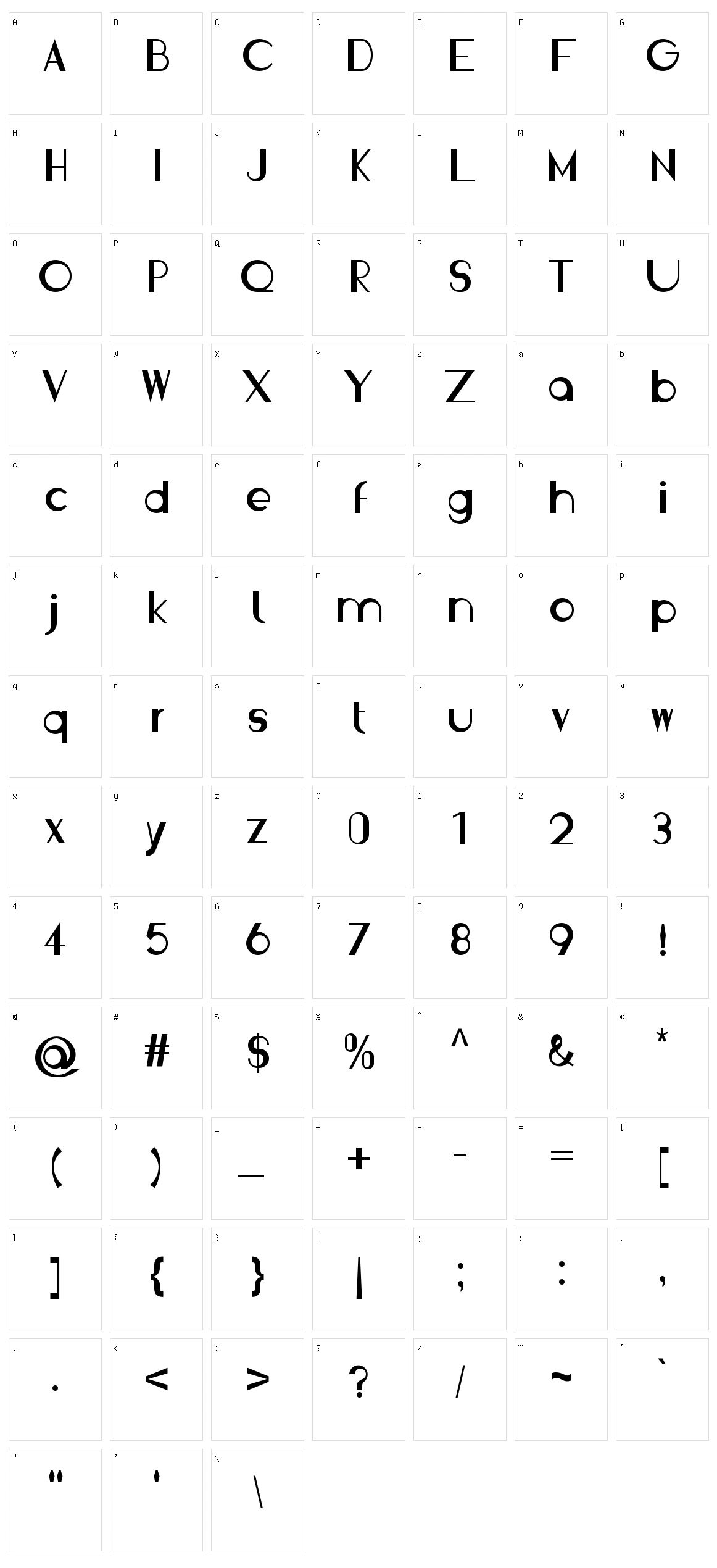
The free font Traumerei is carefully designed by Hlvn Studio, showcasing a thoughtful balance of creativity and usability and falls under the Retro font style. When you download the ZIP file, it contains only 76.9 KB of font files, making it lightweight and quick to download. Please review the license details below to understand permitted usage and distribution rights. If license information is not available, we recommend using this font for personal projects only or contacting the author directly for commercial usage permissions.
Traumerei Font By Hlvn Studio